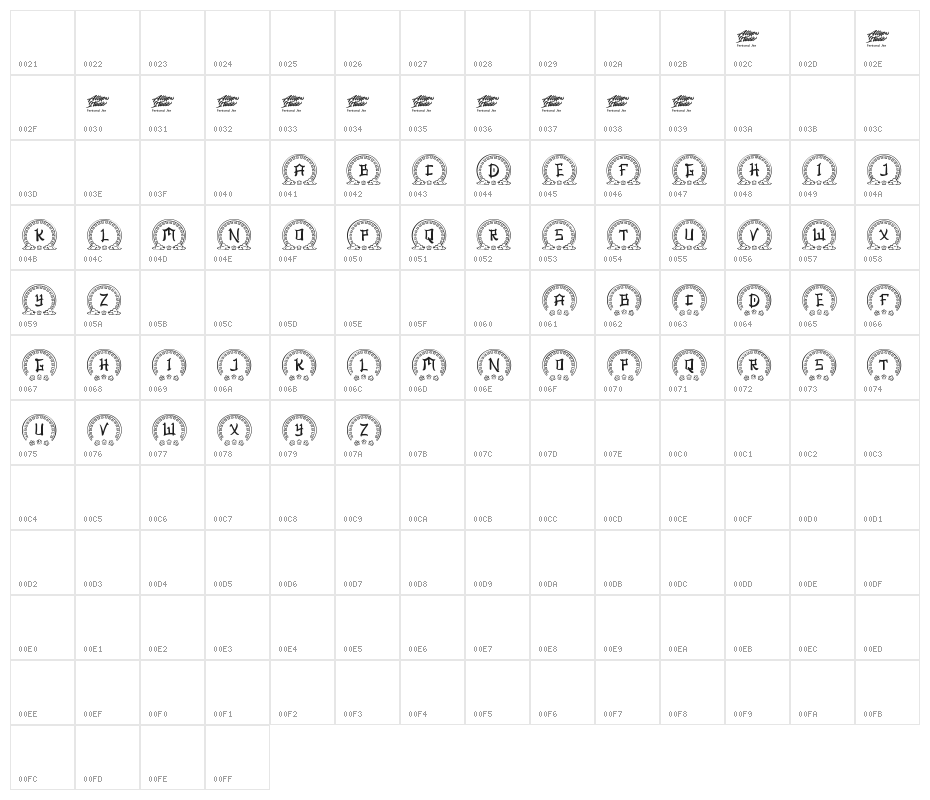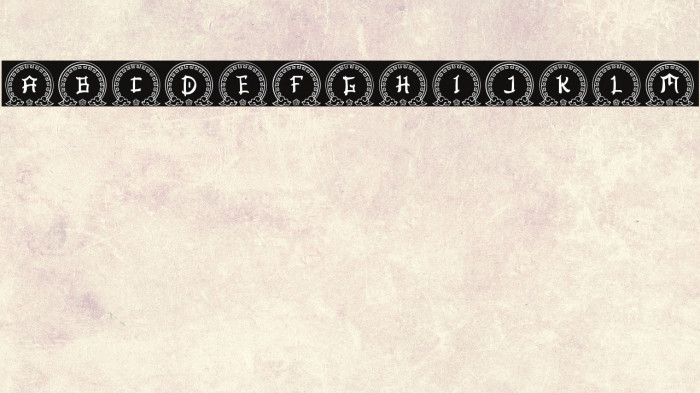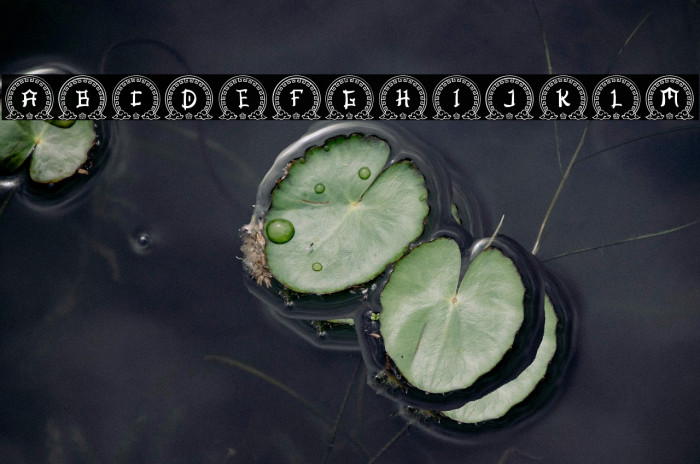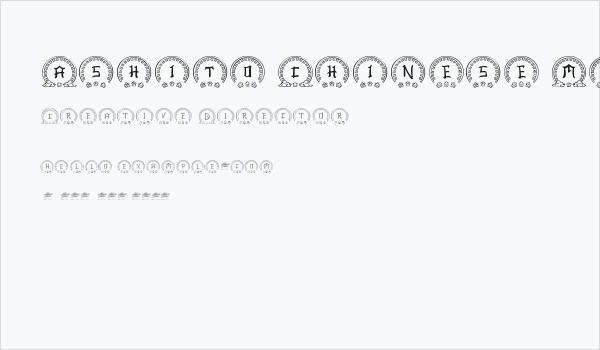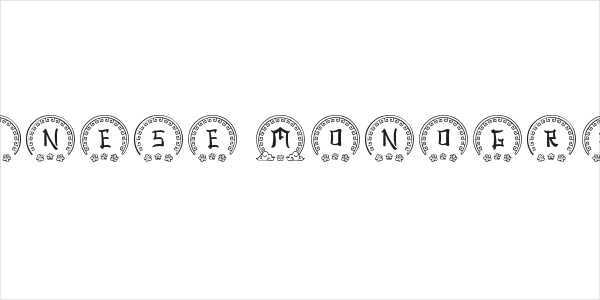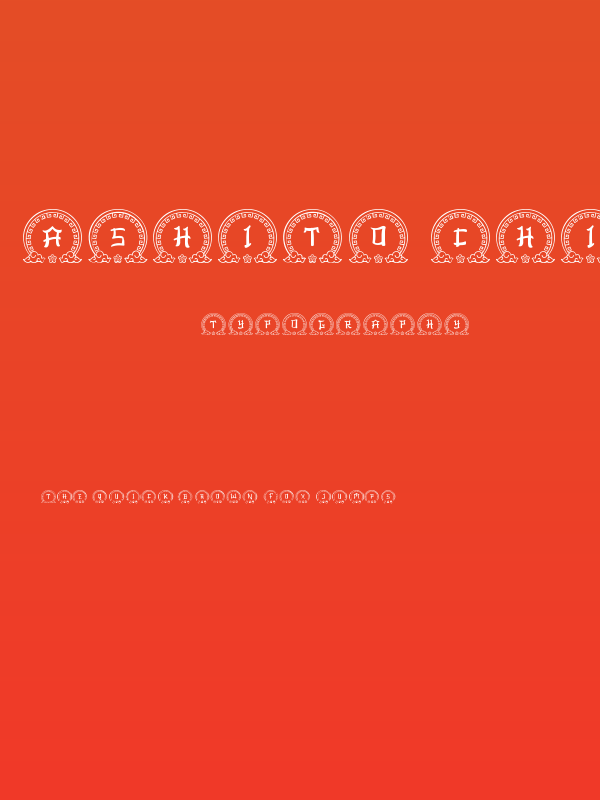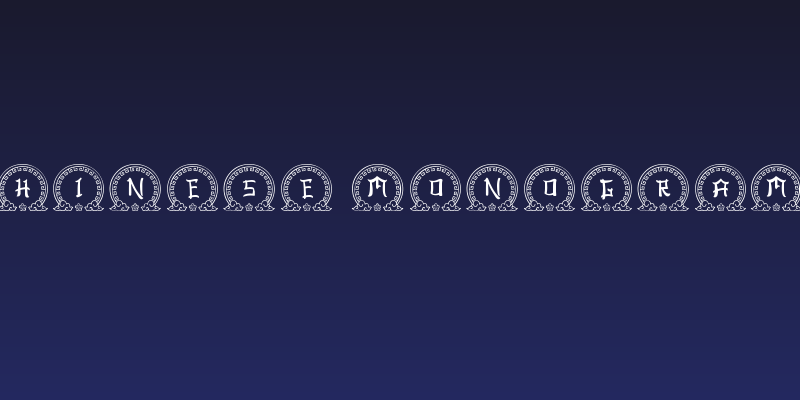
Ashito Chinese Monogram Regular Font
Ashito Chinese Monogram Regular Description
This font features a unique and intricate design, combining elements of traditional Chinese motifs with a modern monogram style. Each character is encased within a circular emblem, adorned with decorative patterns that evoke a sense of elegance and cultural richness. The letters are bold and distinct, yet harmoniously integrated with the surrounding embellishments. This font stands out for its artistic flair and cultural resonance, making it an excellent choice for projects that seek to blend tradition with contemporary aesthetics. The overall appearance is both sophisticated and eye-catching, suitable for a variety of creative applications.
| Proposed Projects | Ideal for branding, invitations, cultural events, and artistic projects that require a touch of elegance and tradition. |